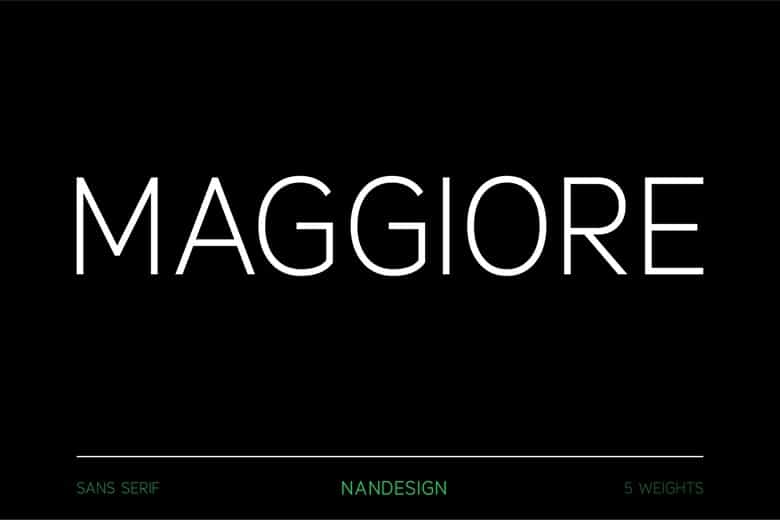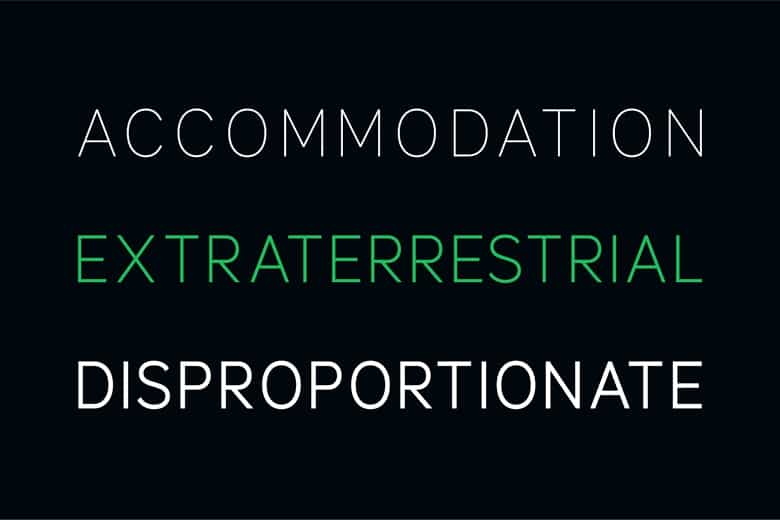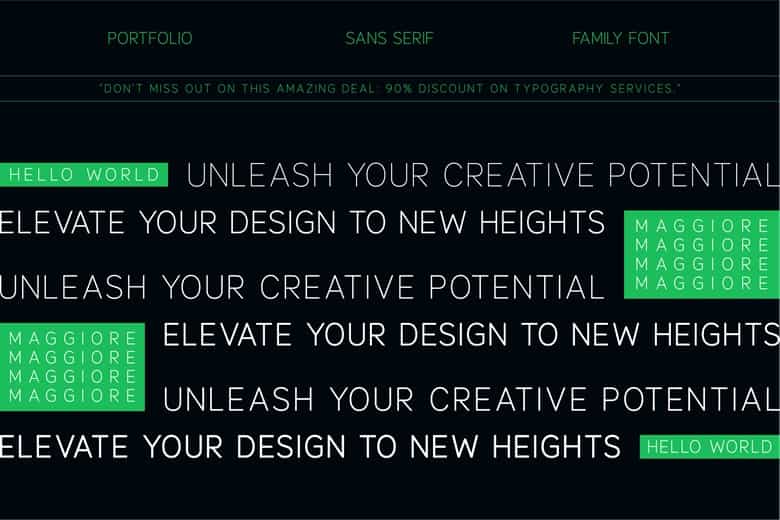
Maggiore is a cute and playful sans styled font family designed by Italian based design company called Nan Design. This is an all-caps typeface that is very useful and looks good in just about any situation with which it is used. This particular font comes with 5 different weights, and the flexibility that comes with it cannot be compared to any other; it fits cove… Magazine and logos, and of course, it is also suitable for one poster movie and other projects.